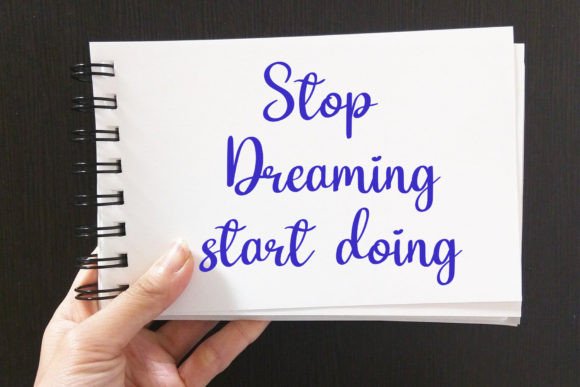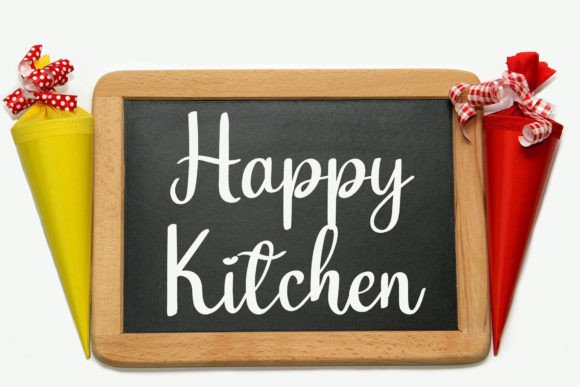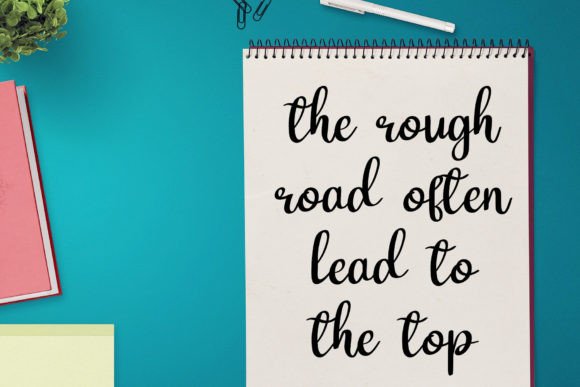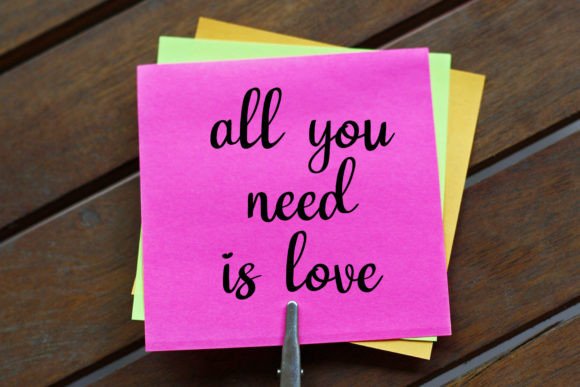
Introducing Birthday Font: Elevate Your Designs with Elegance and Sophistication
Are you tired of using the same old fonts for your designs? Look no further! We’re excited to introduce Birthday Font, a unique and sophisticated typeface that adds a touch of elegance to any creation. With its fluid and refined appearance, Birthday Font is perfect for designers and crafters looking to make a statement.
The Perfect Choice for Special Occasions
Birthday Font is designed to bring a personal touch to your designs, making it ideal for special occasions such as wedding invitations, greetings, and announcements. Its elegant and refined appearance also makes it suitable for billboards, logos, business cards, and any design that requires a touch of sophistication.
One of the standout features of Birthday Font is its fluidity and elegance. The font’s inconsistent baseline gives it a handmade, personal feel that’s perfect for adding a touch of warmth and authenticity to your designs. Whether you’re creating a wedding invitation or a business card, Birthday Font is sure to make your design stand out.
What Sets Birthday Font Apart
So, what makes Birthday Font unique? Here are a few features that set it apart:
- Fluid and Elegant Design: Birthday Font’s refined appearance makes it perfect for designs that require a touch of sophistication.
- Inconsistent Baseline: The font’s inconsistent baseline gives it a handmade, personal feel that’s perfect for adding a touch of warmth and authenticity to your designs.
- PUA Encoded: Birthday Font is PUA encoded, providing seamless access to all glyphs and ornate swashes, making your design process a delight!
With Birthday Font, the design possibilities are endless! Here are a few ideas to get you started:
- Wedding Invitations: Add a touch of elegance to your wedding invitations with Birthday Font.
- Business Cards: Make a statement with your business cards using Birthday Font.
- Billboards: Use Birthday Font to create eye-catching billboards that grab attention.
- Logos: Create a sophisticated logo for your brand using Birthday Font.
Why Designers and Crafters Love Birthday Font
Designers and crafters love Birthday Font for its unique and sophisticated appearance. Here are a few reasons why:
- High-Quality Design: The font is designed with high-quality and precision, ensuring that it looks great in any design.
- Versatile: Birthday Font is versatile and can be used for a wide range of designs, from wedding invitations to business cards.
Are you ready to take your designs to the next level? With Birthday Font, you can add a touch of elegance and sophistication to any creation. Whether you’re a designer or crafter, Birthday Font is the perfect choice for anyone looking to make a statement.